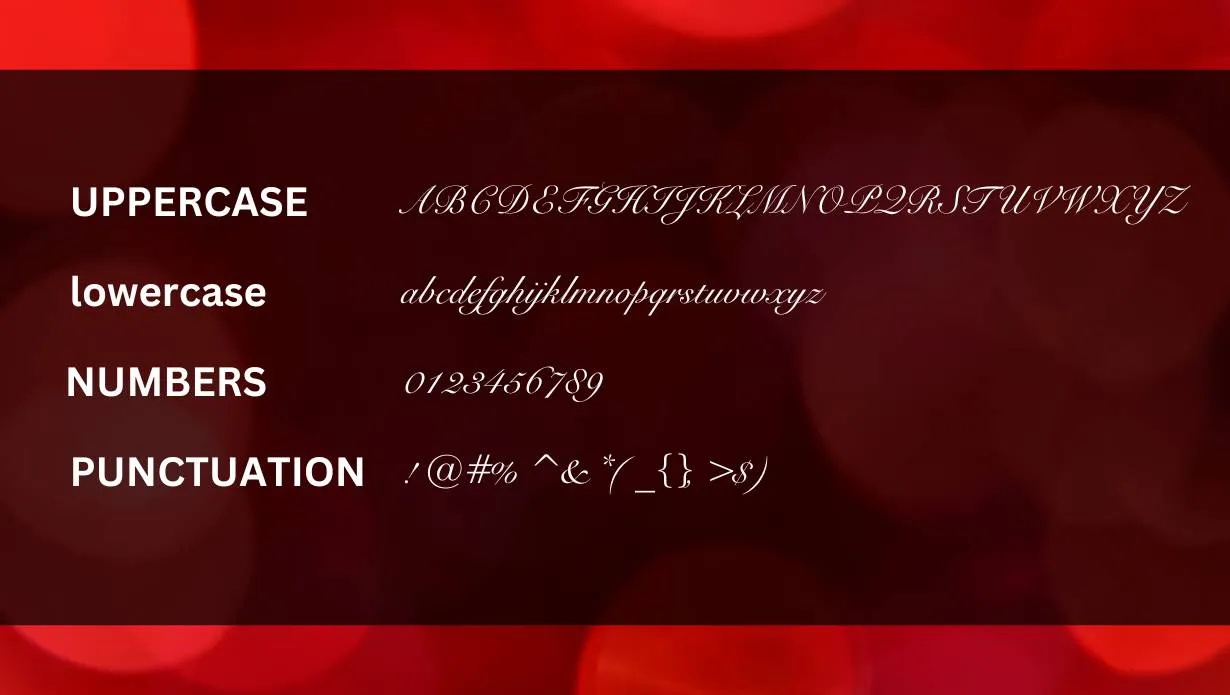
Snell Roundhand Font is a very popular handwritten script typeface. You can get to download this lovely font free from our site. Its characters can be mixed well together with the Oh Beloved font.
Matthew Carter is a very famous and known designer. He designed this great font in 1966 and then published the font with the help of Linotype foundry. He took the inspiration for designing this font from Charles Snell’s roundhand script.
| Name | Snell Roundhand Font |
| Designer | Matthew Carter |
| Category | Handwritten, Script |
| Foundry | Linotype |